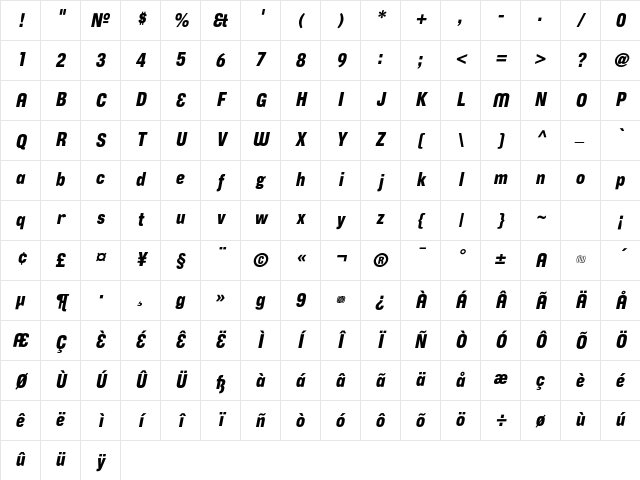
CorpuGotAltIta Regular
Design Context for CorpuGotAltIta
CorpuGotAltIta is a composed and adaptable typeface that performs quietly and consistently across a wide range of design contexts.